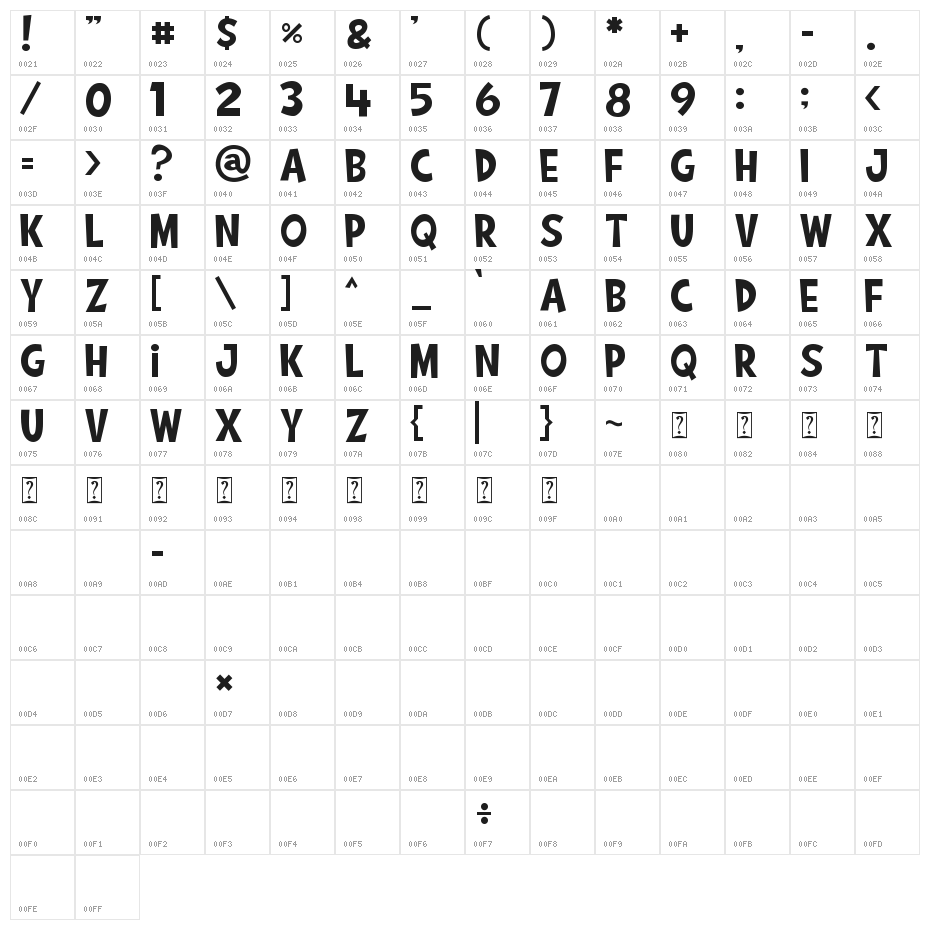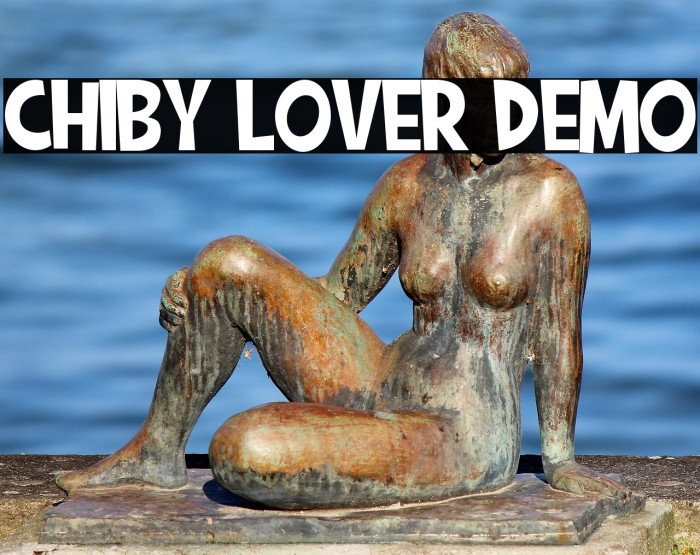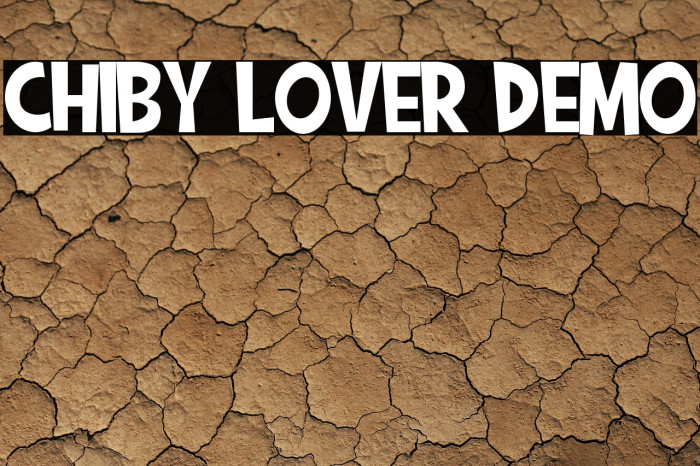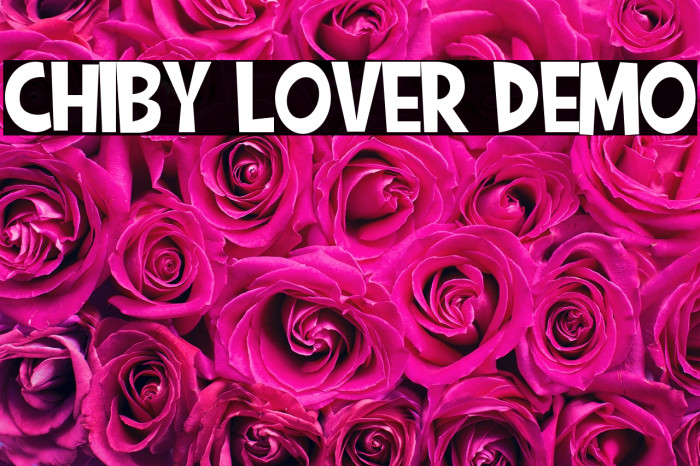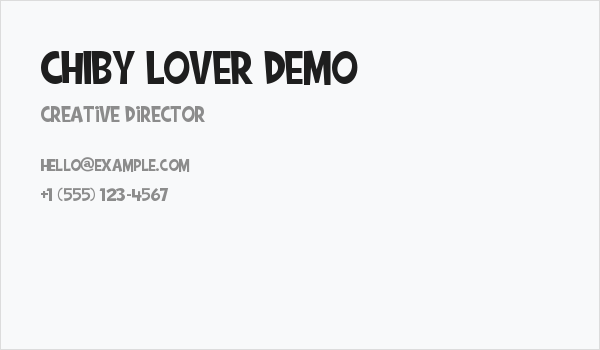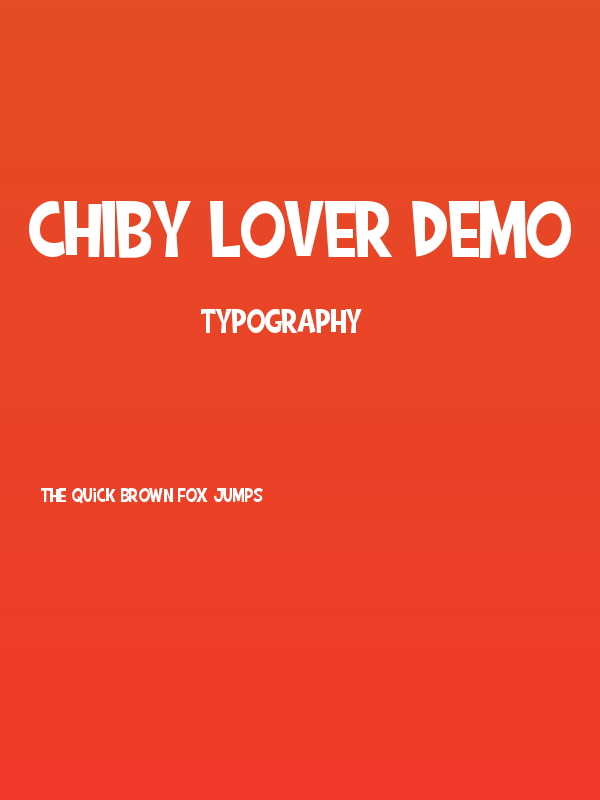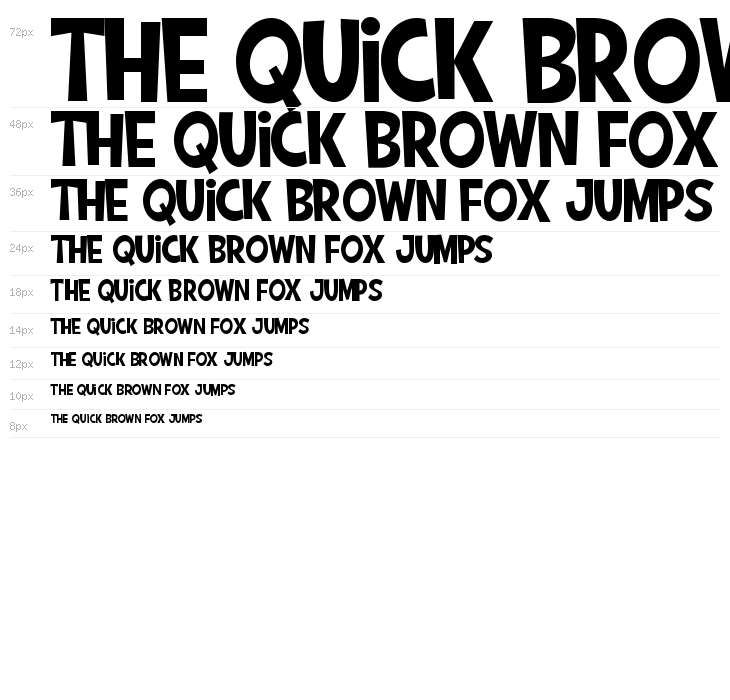
CHIBY LOVER DEMO Font
CHIBY LOVER DEMO Description
This font features a bold and playful style with a strong presence. The characters are slightly condensed, giving them a compact and energetic look. The strokes are thick and consistent, providing a uniform appearance across all letters and numbers. The font has a whimsical and informal feel, making it suitable for creative and fun projects. The uppercase and lowercase letters maintain a consistent style, while the numerals and special characters complement the overall design. This font is ideal for projects that require a bold and lively touch.
| Proposed Projects | Ideal for children's books, playful branding, posters, and creative designs. |